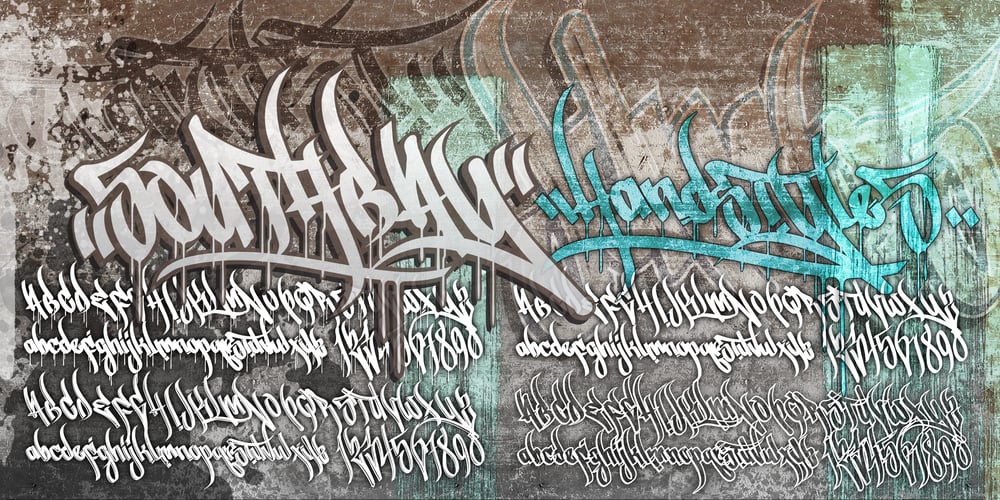
StreetArtist Font Family was designed by Matthew Napolitano and published by Graffiti Fonts. StreetArtist contains 4 styles and family package options. This tag font includes full alphabets of uppercase & lowercase letters giving 2 distinct looks as well as interesting substitutions. Street Artist is clean and consistent without sacrificing style. With the StreetArtist font family anyone can easily create their own custom graffiti lettering. This tag style typeface includes 4 styles that can be used alone or in groups to create complex effects that are difficult to render manually. The style is inspired by modern handstyles as written with a chisel-tip marker. The rendering of each glyph is clean and smooth. Well over 200 letters, numbers and symbols are included in each style.